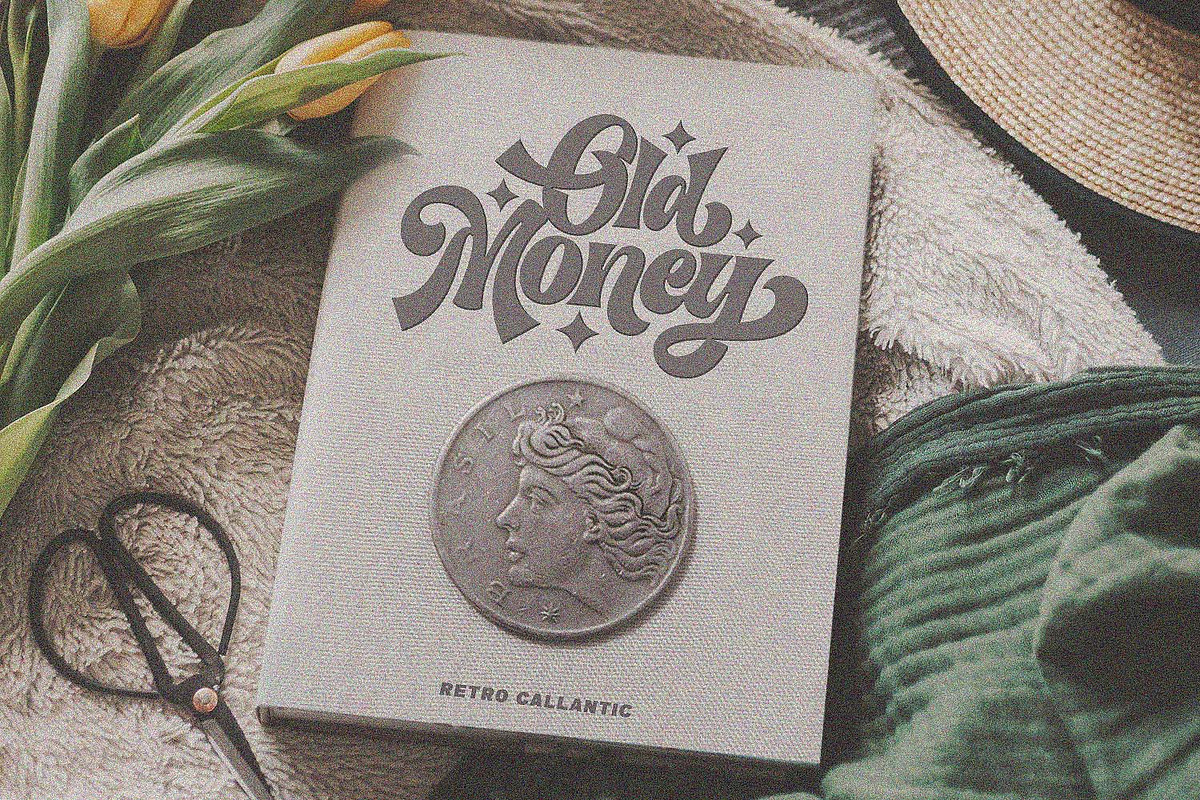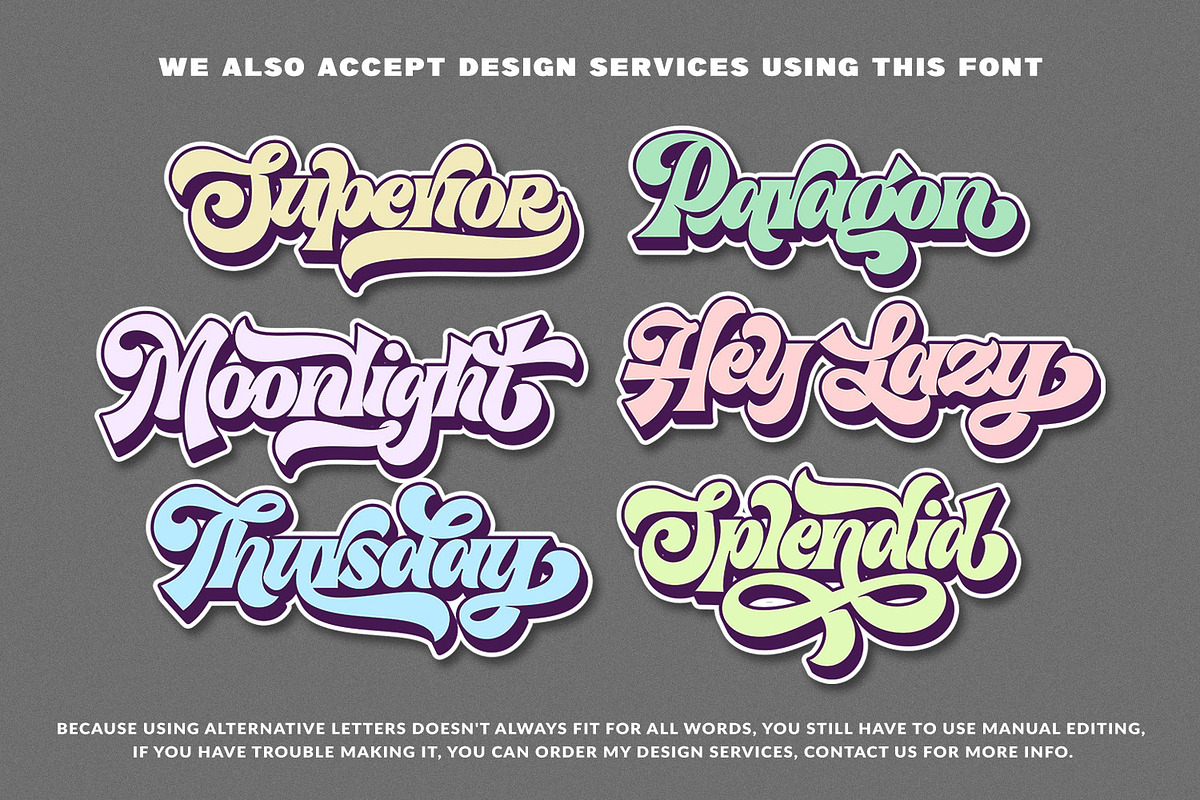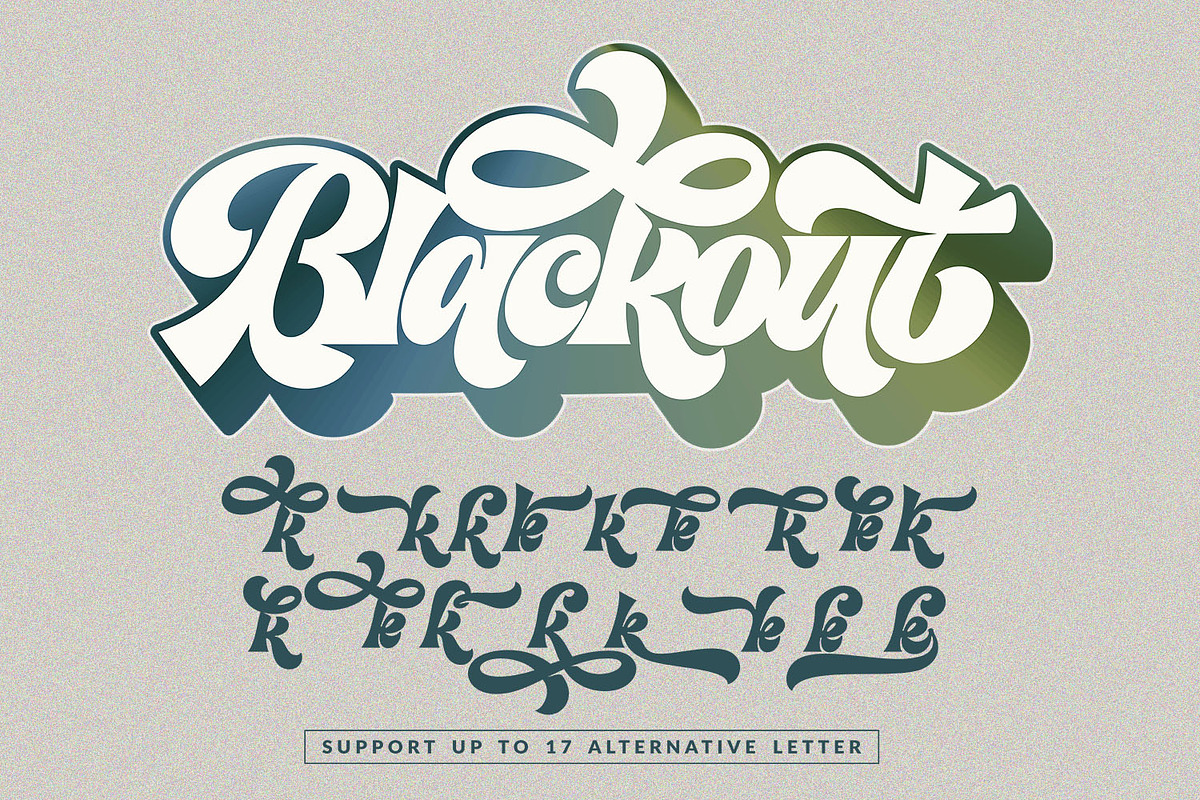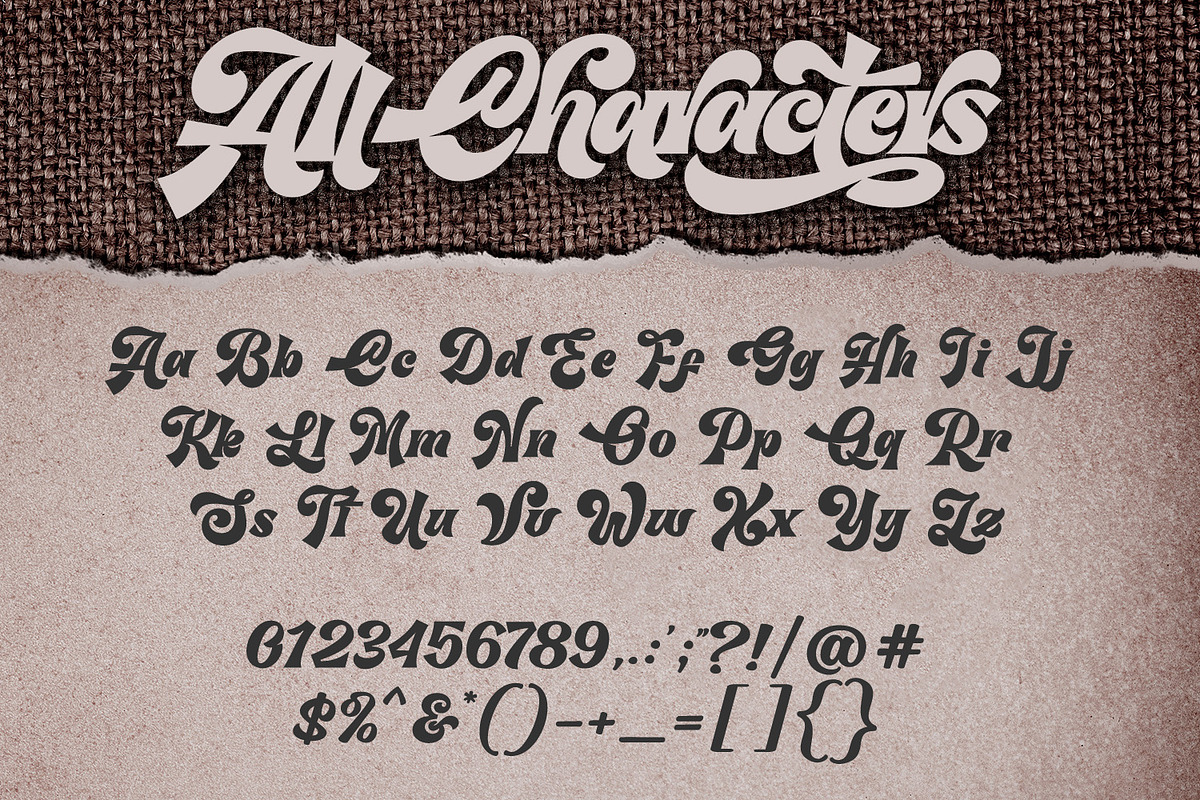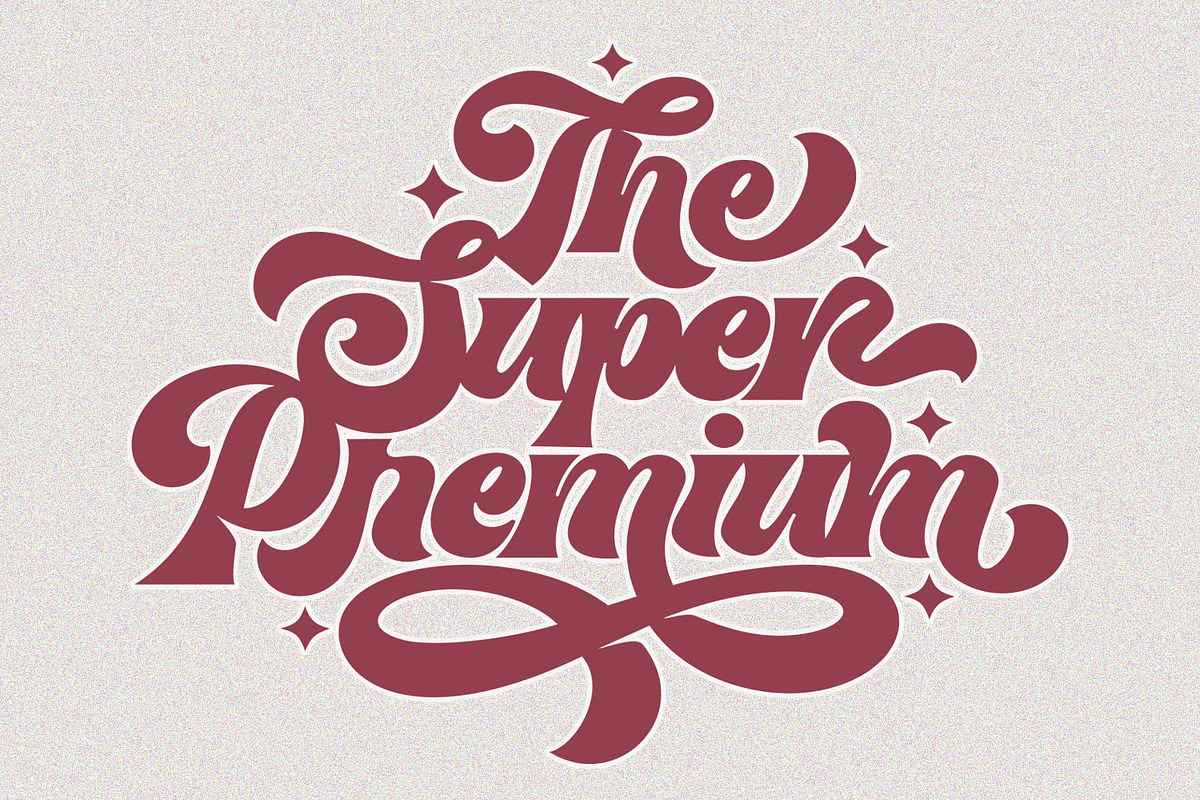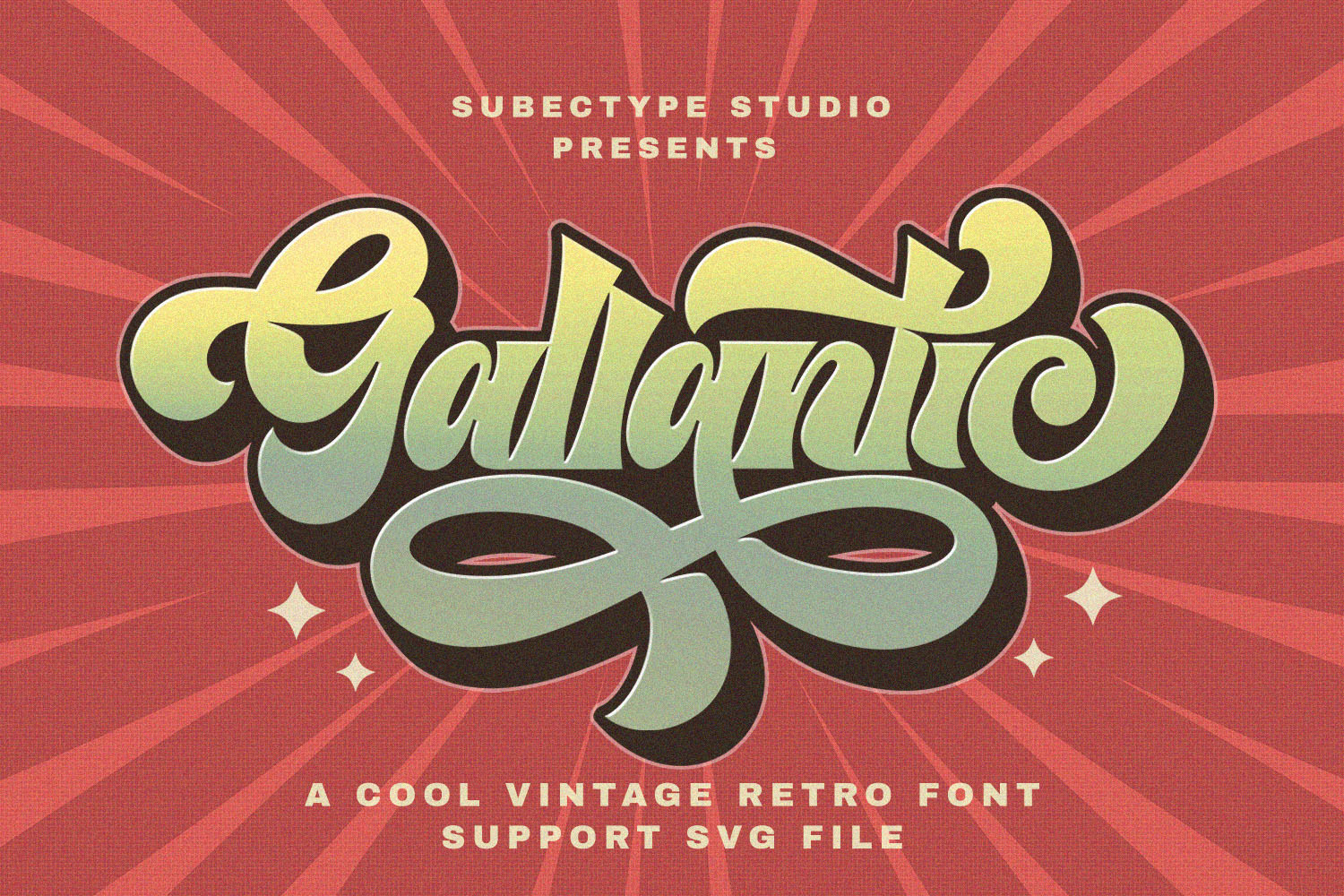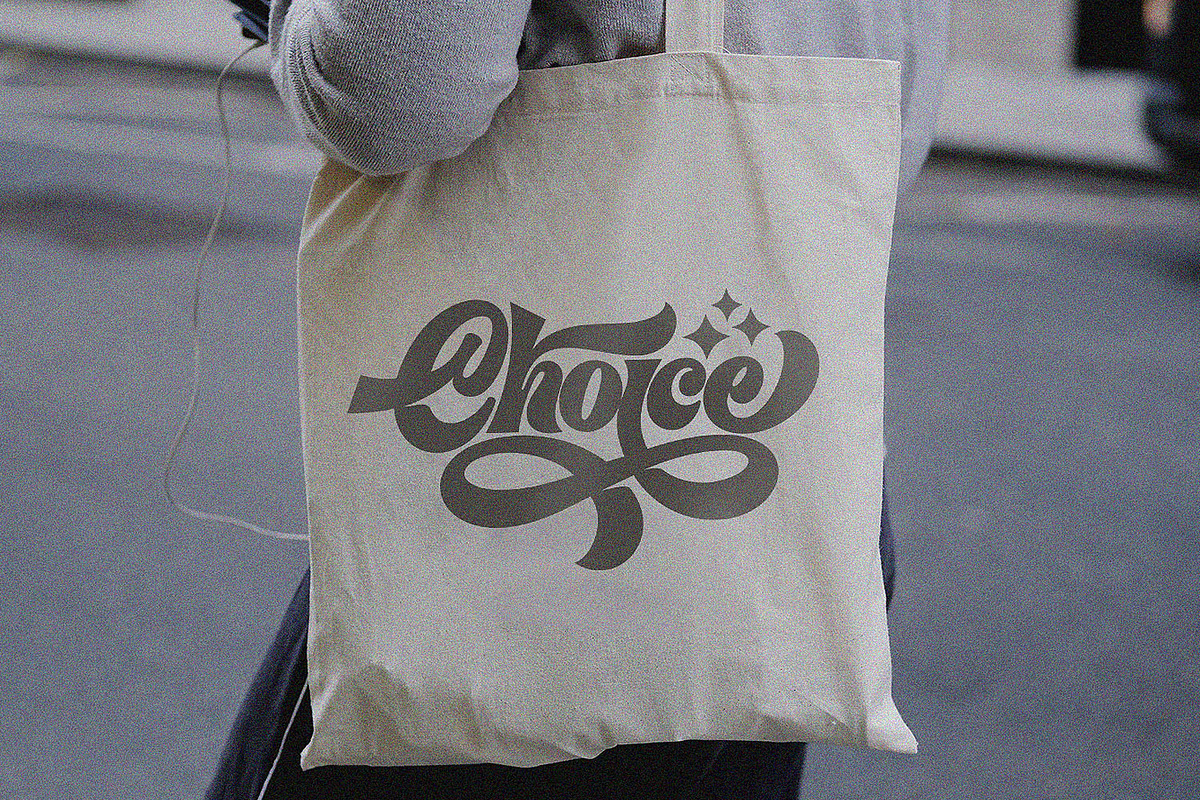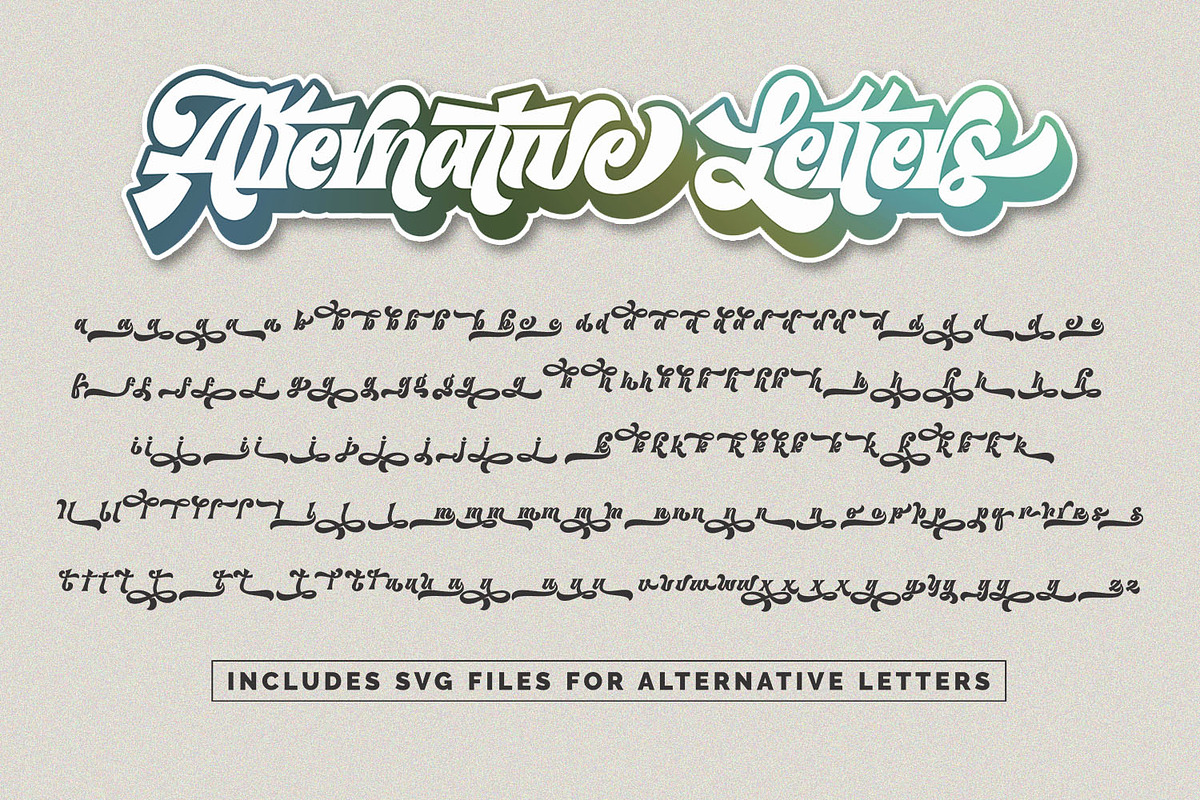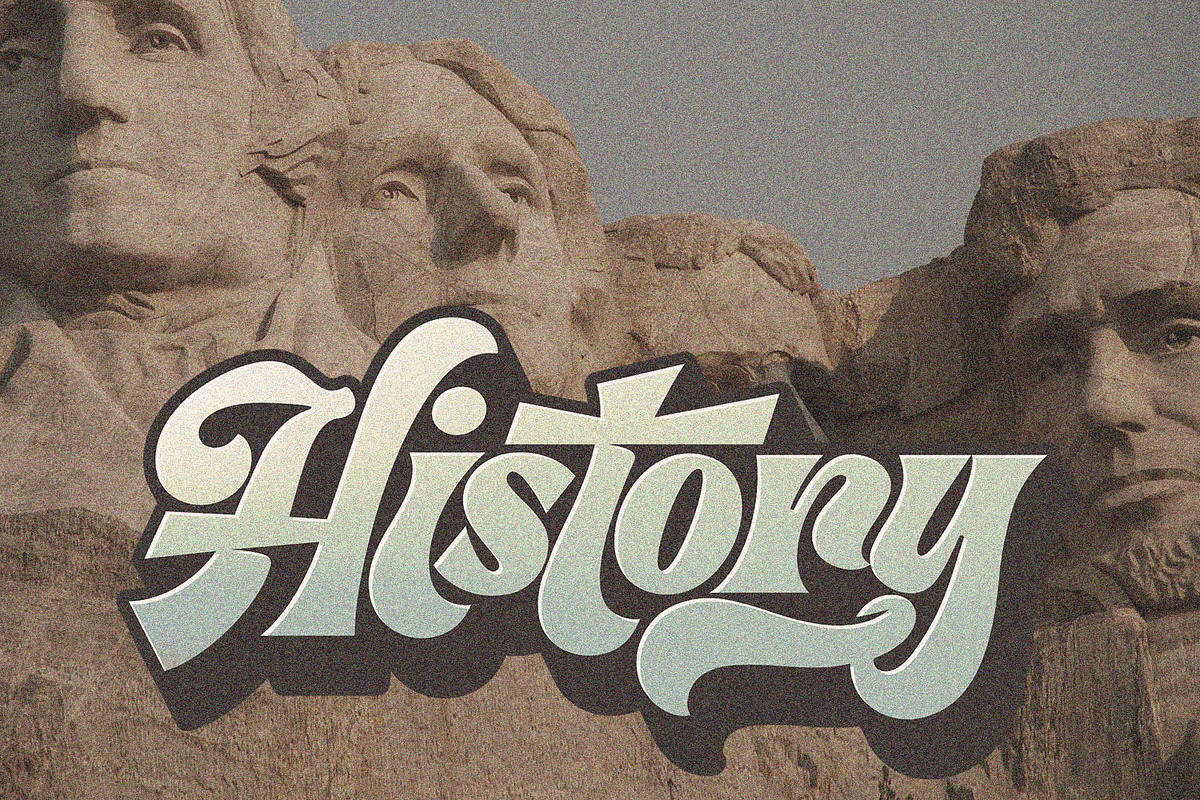
Gallantic - Vintage Retro Font
The Gallantic is a Vintage retro font. Inspired from retro typography and lettering in the 70's and 80's combine with bold typography style. This font is perfect for: Clothing design, Fashion, Apparel, shirts, retro designs, procreate, stickers, logos, branding, greeting cards, Cricut projects, posters, magazines, social media, prints, Silhouette, Corjl, 70s, 80s, 90s retro design font, party, bissiness, iPad, Groovy Design, Decor Design, DIY craft,vibtage design and more!